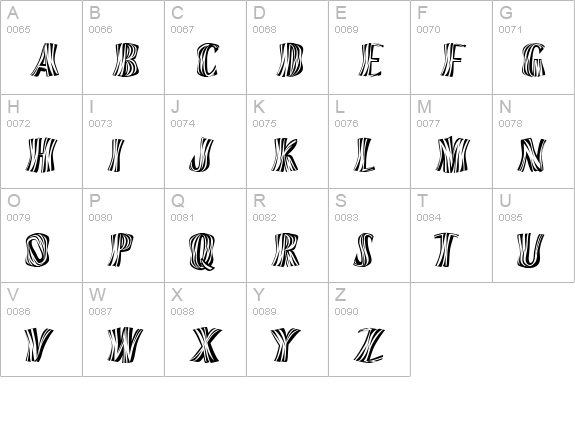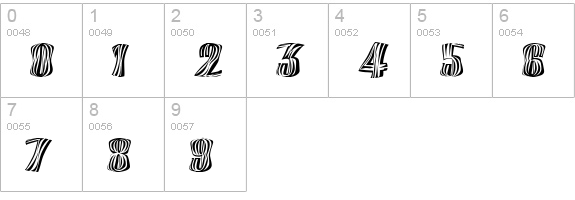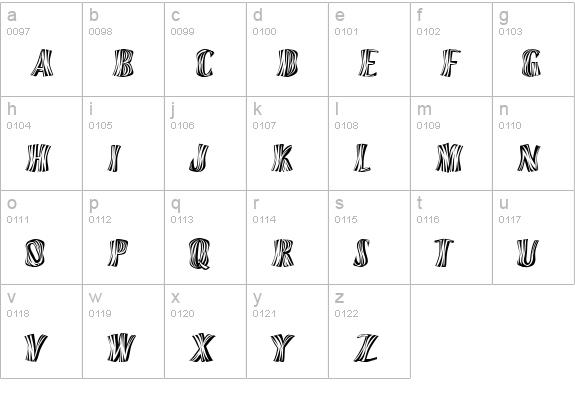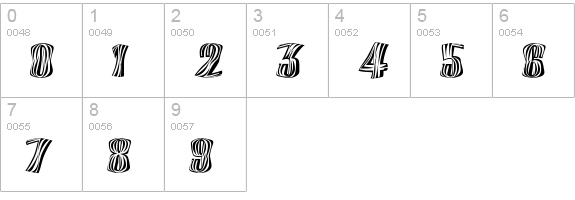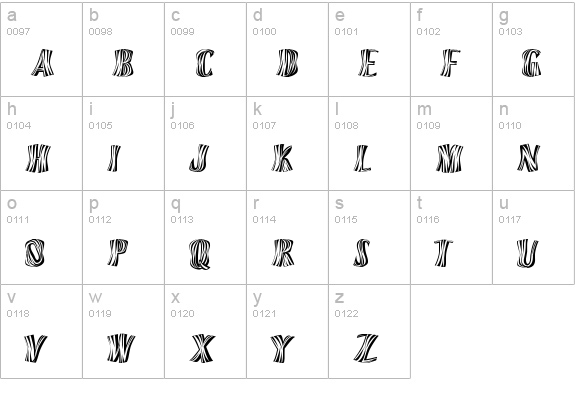
Orinoco Font Details
Orinoco font is a stunning display typeface that exudes elegance and sophistication. Its unique design features intricate details and sharp lines that make it perfect for a wide range of creative projects. The Orinoco font is versatile and can be used for anything from branding to editorial design. The best part about Orinoco font is that it is available for free download at FontsMarket.com. This means that you can easily add this gorgeous typeface to your font collection without having to spend a dime. Whether you're a professional designer looking to enhance your projects or a hobbyist seeking a beautiful font for personal use, Orinoco font is the perfect choice. Download it today and elevate your designs with this exquisite typeface.